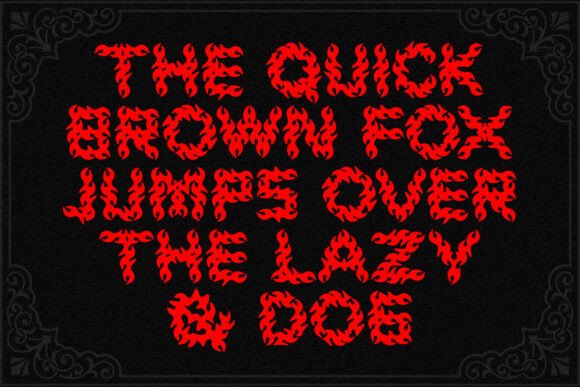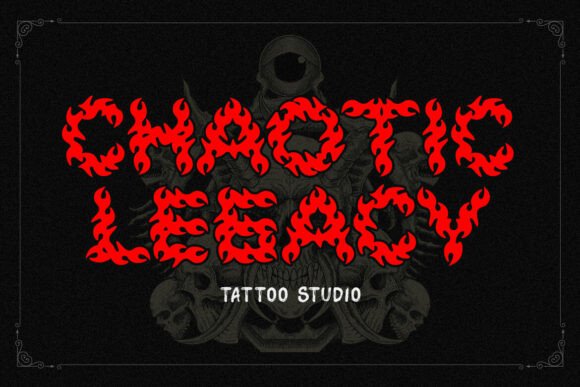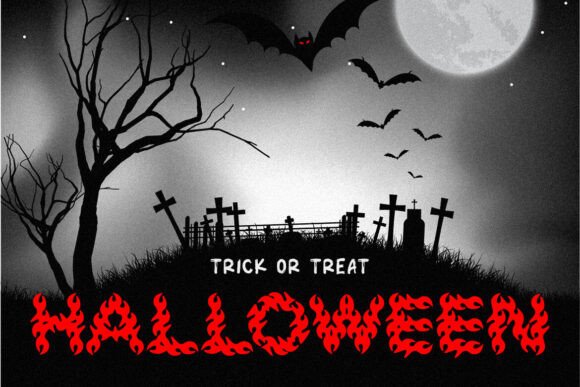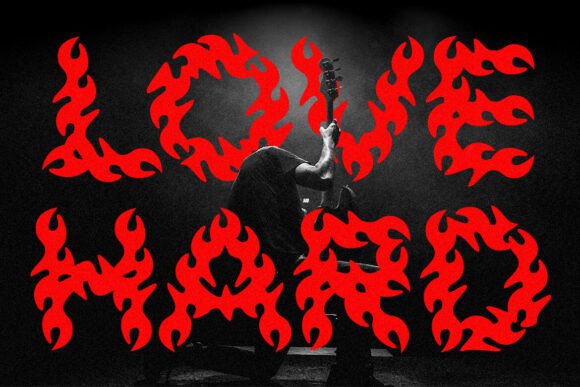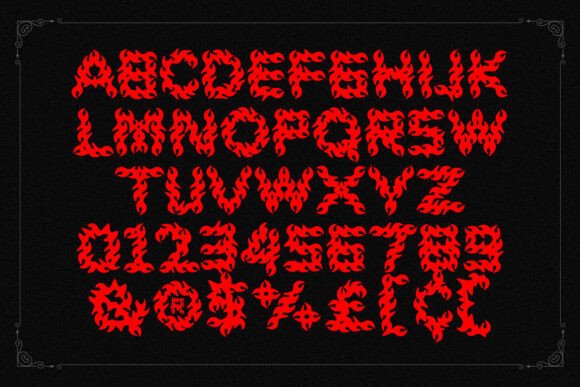
Unleash the Power of Flame Strike Font: Ignite Your Designs with Boldness and Energy
In the world of typography, fonts play a crucial role in conveying the tone and personality of a design. For creatives seeking a modern, striking metal vibe, Flame Strike Font is an excellent choice. This metal-inspired font draws from the energy and boldness of fire, making it perfect for designs that want to make a statement. In this article, we’ll explore the features and benefits of Flame Strike Font, and how it can elevate your designs to the next level.
The Inspiration Behind Flame Strike Font
Flame Strike Font is inspired by the raw energy and power of fire. The font’s design is rooted in the idea of capturing the boldness and intensity of flames, while maintaining a clean and legible aesthetic. The result is a font that exudes confidence and strength, making it ideal for designs that require a sense of daring and adventure.
Key Features of Flame Strike Font
So, what makes Flame Strike Font so unique? Here are some of its key features:
- Metal-inspired design: Flame Strike Font boasts a metallic look that’s reminiscent of molten metal. The font’s rugged, industrial feel makes it perfect for designs that require a sense of toughness and resilience.
- Bold and daring: This font is not for the faint of heart. Flame Strike Font is designed to make a statement, with bold lines and a confident aesthetic that’s sure to grab attention.
- Clean and legible: Despite its bold design, Flame Strike Font remains clean and legible, making it easy to read and understand.
- Simple and no-fuss: The font’s simple design ensures that it won’t overwhelm your design, allowing you to focus on the message you want to convey.
Flame Strike Font is versatile and can be used in a variety of design applications, including:
- Posters: Add a spark of boldness to your posters with Flame Strike Font. Its eye-catching design is sure to grab attention and leave a lasting impression.
- Merchandise: Whether you’re designing t-shirts, mugs, or phone cases, Flame Strike Font is a great choice. Its bold design will help your merchandise stand out from the crowd.
- Logos: If you’re looking for a font that will help your logo make a statement, Flame Strike Font is an excellent choice. Its metallic design and bold aesthetic make it perfect for companies that want to convey strength and confidence.
Why Choose Flame Strike Font?
So, why should you choose Flame Strike Font for your next design project? Here are just a few reasons:
- Unique and eye-catching: Flame Strike Font is a unique and eye-catching font that will help your design stand out from the crowd.
- Versatile: This font can be used in a variety of design applications, from posters to logos.
- Easy to read: Despite its bold design, Flame Strike Font remains clean and legible, making it easy to read and understand.
- Modern and striking: Flame Strike Font has a modern and striking metal vibe that’s perfect for creatives seeking a bold aesthetic.
In conclusion, Flame Strike Font is a powerful and versatile font that’s perfect for designers and crafters seeking a modern, striking metal vibe. Its bold and daring design, combined with its clean and legible aesthetic, make it an excellent choice for a variety of design applications. Whether you’re designing posters, merchandise, or logos, Flame Strike Font is sure to add a spark of boldness to your designs. So why wait? Try Flame Strike Font today and ignite your designs with energy and impact!